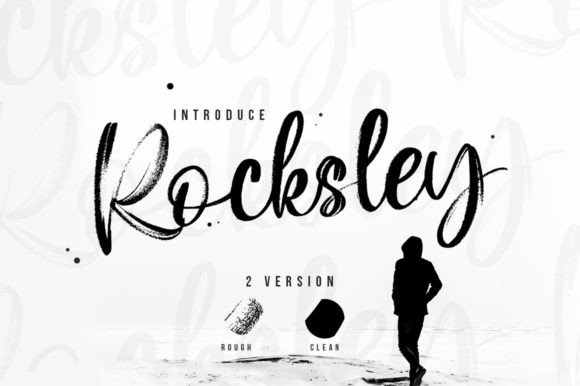
Introducing Rocksley, the font that embodies luxury and sophistication. Created by Skinny Type, this script font is perfect for designers who want to make a bold statement with their work. If you're looking for the best fonts for headings, Rocksley should be at the top of your list.
Rocksley's elegant curves and fluid strokes are expertly crafted, making it a timeless and modern choice for any design project. Whether you're creating high-end branding, invitations, or editorial designs, this font is sure to impress.
What sets Rocksley apart from other script fonts is its exclusivity. This font oozes luxury, making it perfect for brands that want to stand out from the crowd. It delivers a bold and exclusive statement that captivates your audience, leaving a lasting impression.
One of the best features of Rocksley is its PUA encoding. This means that you can access all of the glyphs and swashes with ease, making it a versatile font for any project.
In summary, if you want to elevate your design game and create stunning projects that leave a lasting impression, Rocksley is the font for you. Its luxury and exclusivity make it the perfect choice for high-end branding, invitations, and editorial design. Download it today and start creating designs that truly stand out.